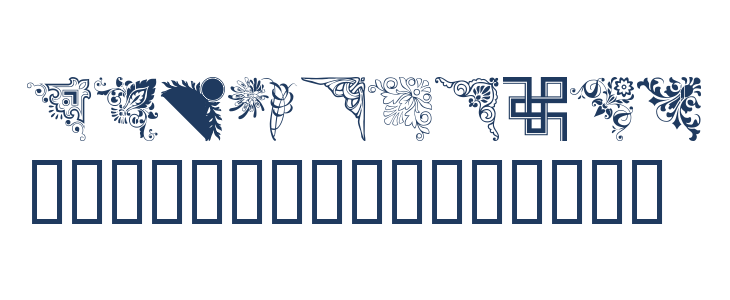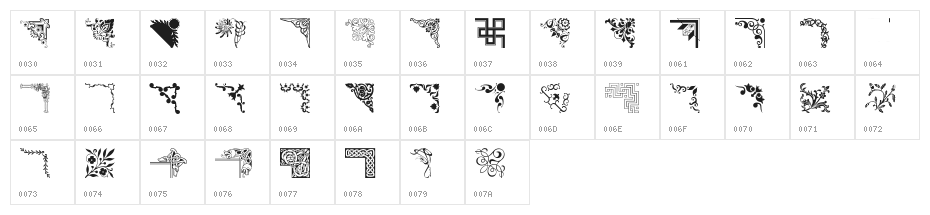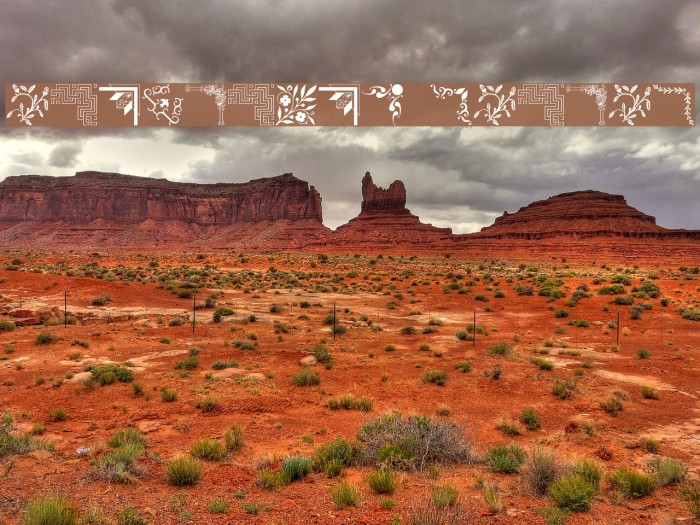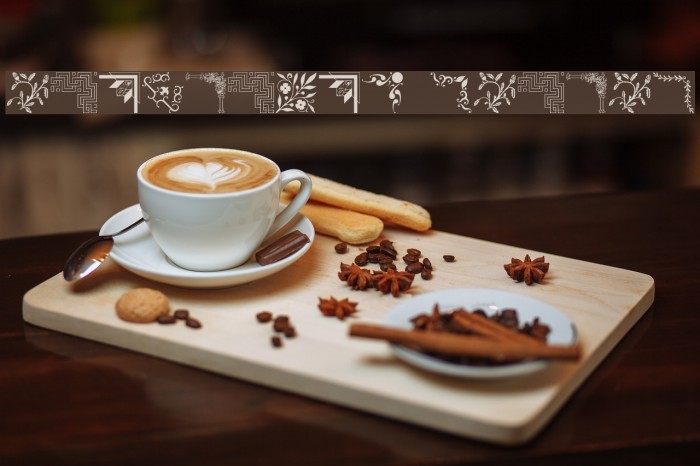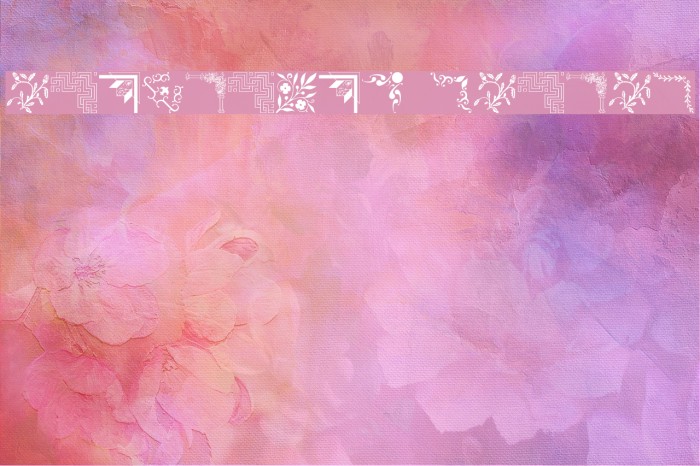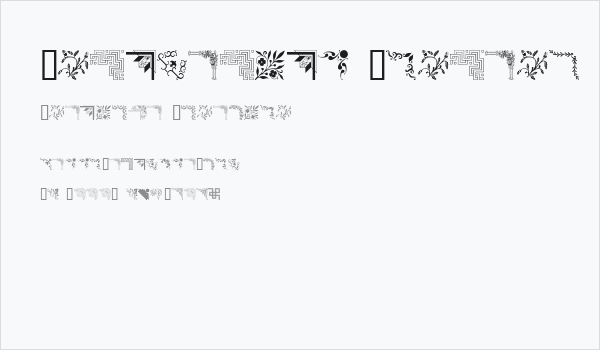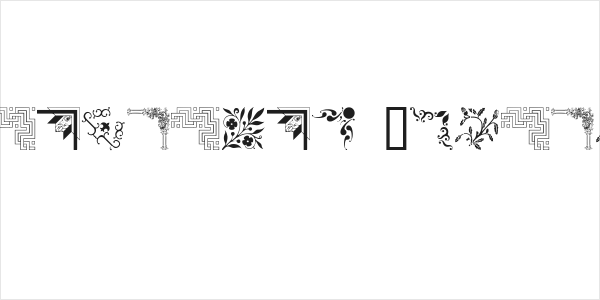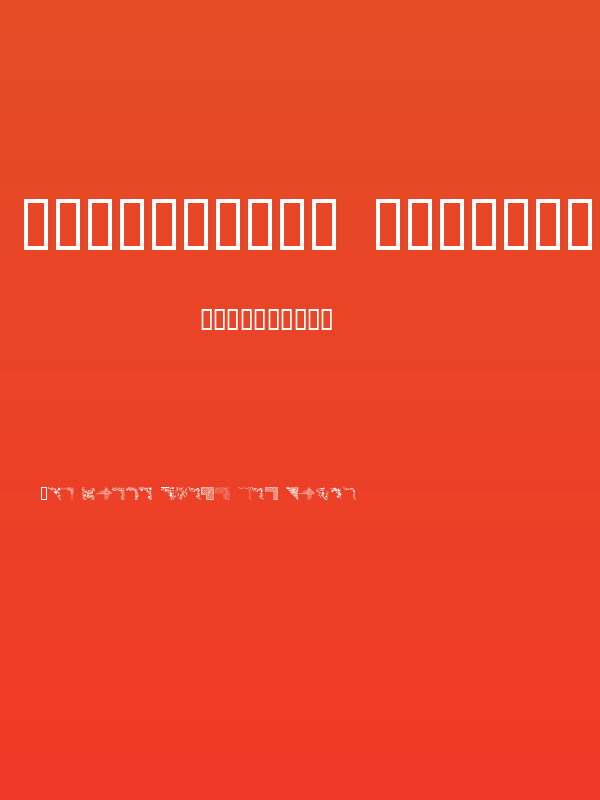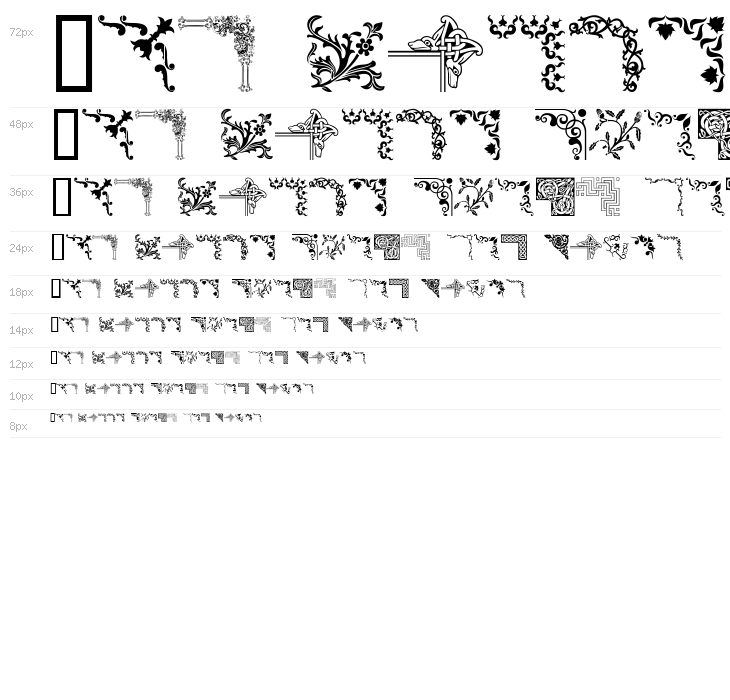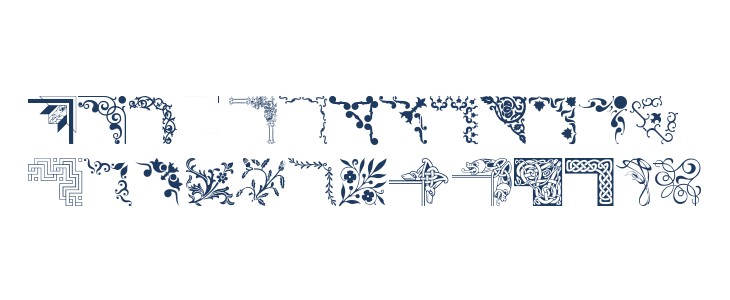
Ornamental Corners Font
Ornamental Corners Description
Highly decorative set of ornamental corner glyphs featuring intricate floral, geometric, and abstract motifs, designed to embellish the corners of layouts or frames.
| Overall Style | Decorative, Vintage, Ornamental |
| Use Case | Borders, Frames, Decorative accents |
| Proposed Projects | Invitations, certificates, book covers, decorative borders, vintage posters, scrapbooking, and artistic layouts. |